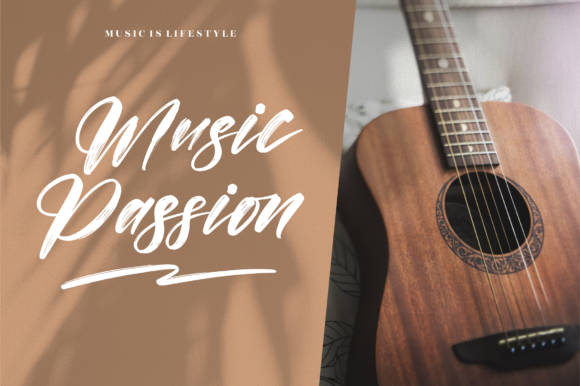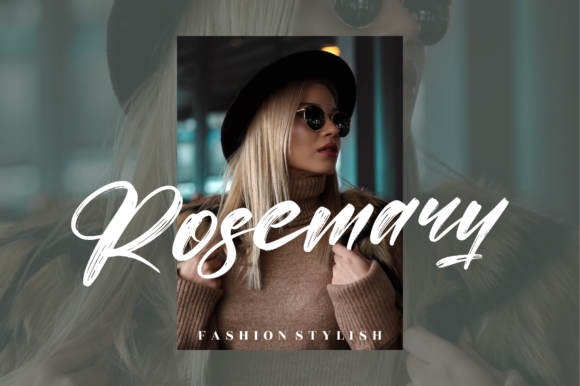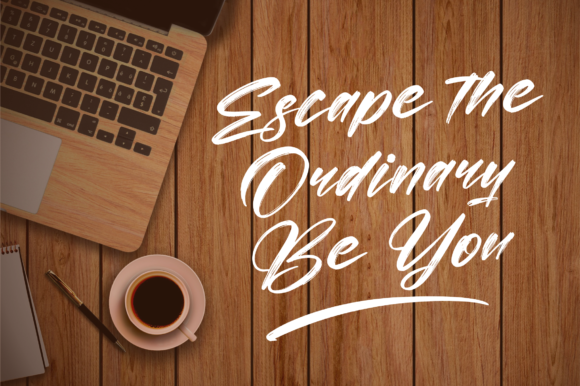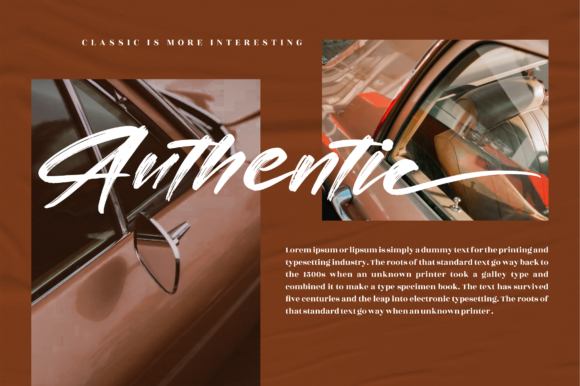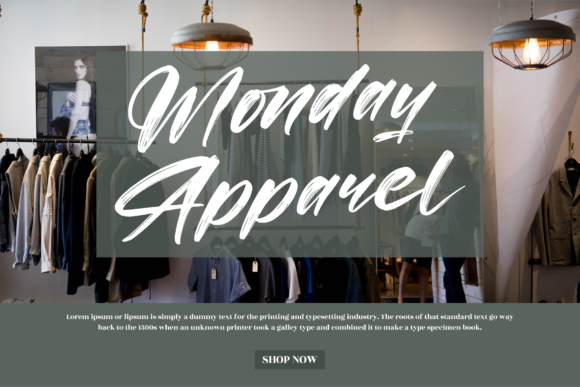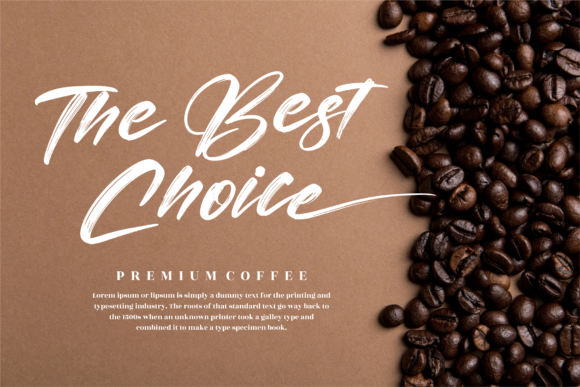
Introduction to Roughton Bogatha Font
Roughton Bogatha is a delicate, elegant and flowing handwritten font.
It has beautiful and well balanced characters and as a result, it matches a wide pool of designs It is PUA encoded which means you can access all of the glyphs and swashes with ease.